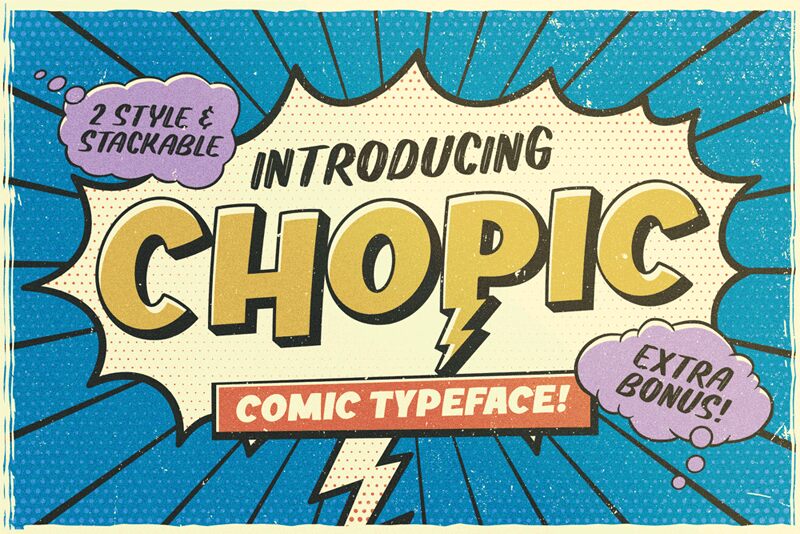
Chopic 3D, a standout member of the Chopic font family, is a dynamic creation by Alit Design. This display typeface boasts an extra-bold weight with a 3D comic style that exudes playfulness and presence. Its chunky letters pop off the page, giving text an almost tangible quality that can't help but catch the eye.
The Chopic 3D font is not just about its visual heft; it's also about character. Its design carries a whimsical charm perfect for projects aiming for a fun and engaging aesthetic. Whether it’s for captivating titles in children’s books, standout headers on event posters, or playful branding elements, this font infuses every word with life.
With its bold lines and three-dimensional appeal, Chopic 3D promises to add depth to graphic designs and create an instant impact on viewers. It's particularly suitable for creative endeavors where a mix of approachability and zest is desired. Dive into Chopic 3D for your next project and watch your designs leap off the screen (or page) with energy and enthusiasm!